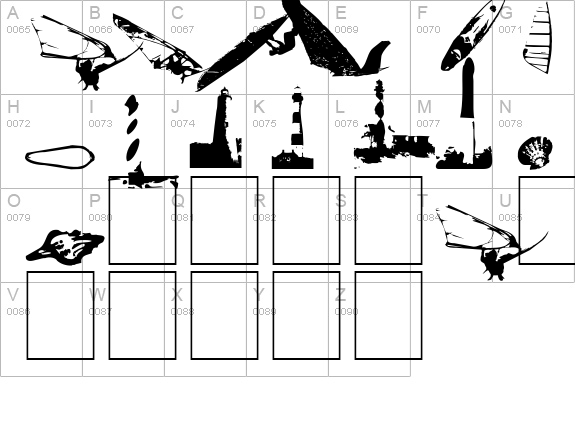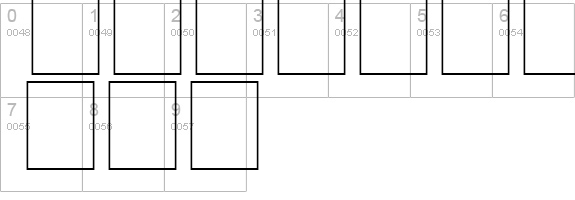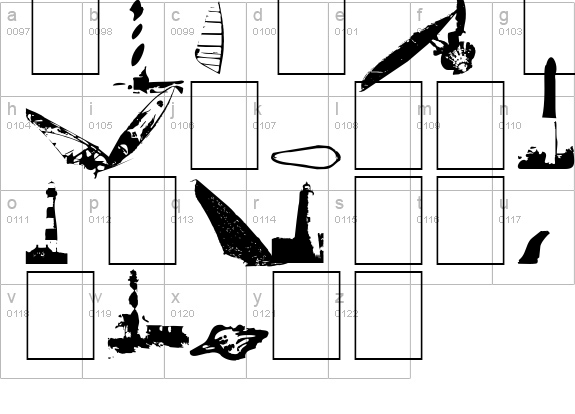
Surf Bat is a playful and energetic font that perfectly captures the essence of windsurfing. With its dynamic and fluid design, each letter resembles the motion and excitement of riding the waves. The Surf Bat font is a delightful addition to any design project related to water sports, summer activities, or simply to add a fun and carefree touch to your creations. Best of all, Surf Bat is available for free download at FontsMarket.com. Embrace the adventurous spirit of windsurfing with this unique and bold font that is sure to make a splash in your designs. Let Surf Bat bring a sense of freedom and joy to your projects today!